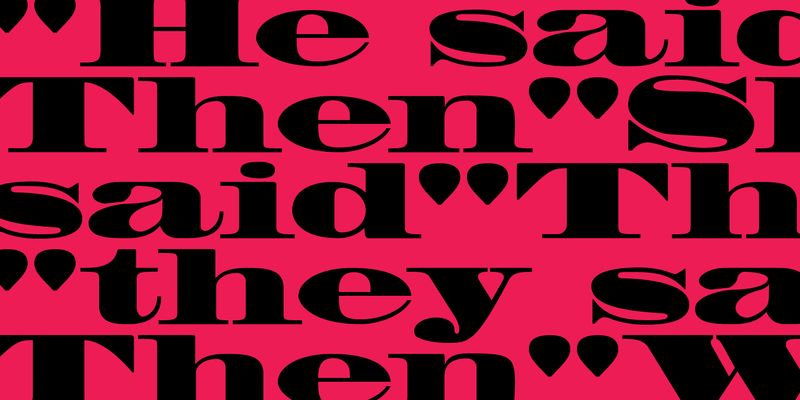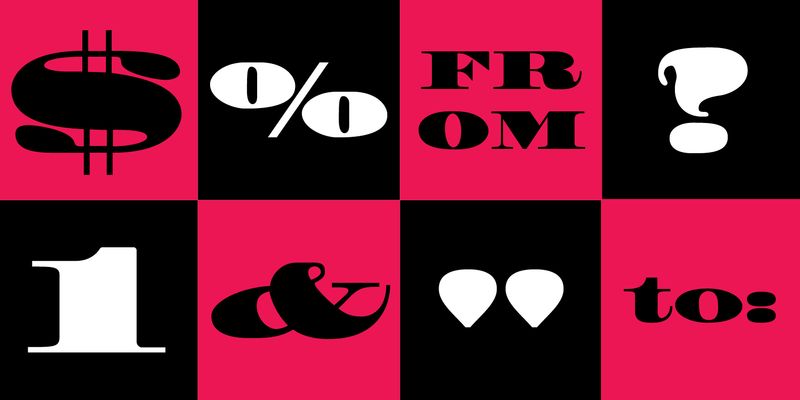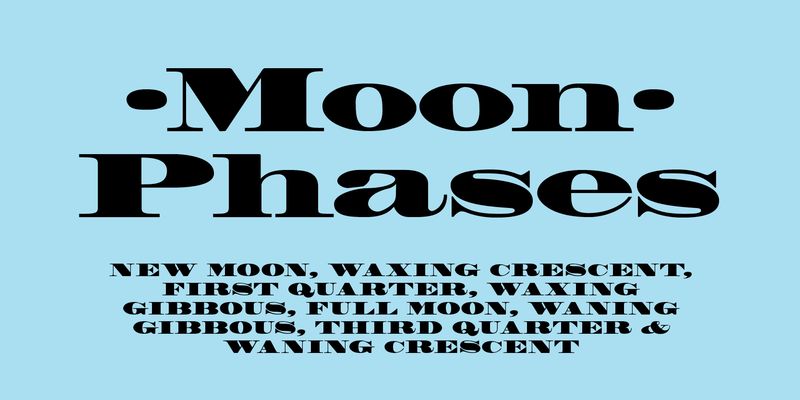
Madrone is an Adobe Originals typeface designed by Barbara Lind in 1991. Madrone was digitized from proofs of the wood type collection in the National Museum of American History in the Smithsonian Institution in Washington, D.C. A fat face roman, Madrone is typical of popular early nineteenth-century styles. Fat face types are characterized by their squatness and extreme letter width; one familiar version of this design is Bodoni Ultra Bold. Madrone is eye-catching for display uses in advertising and packaging.